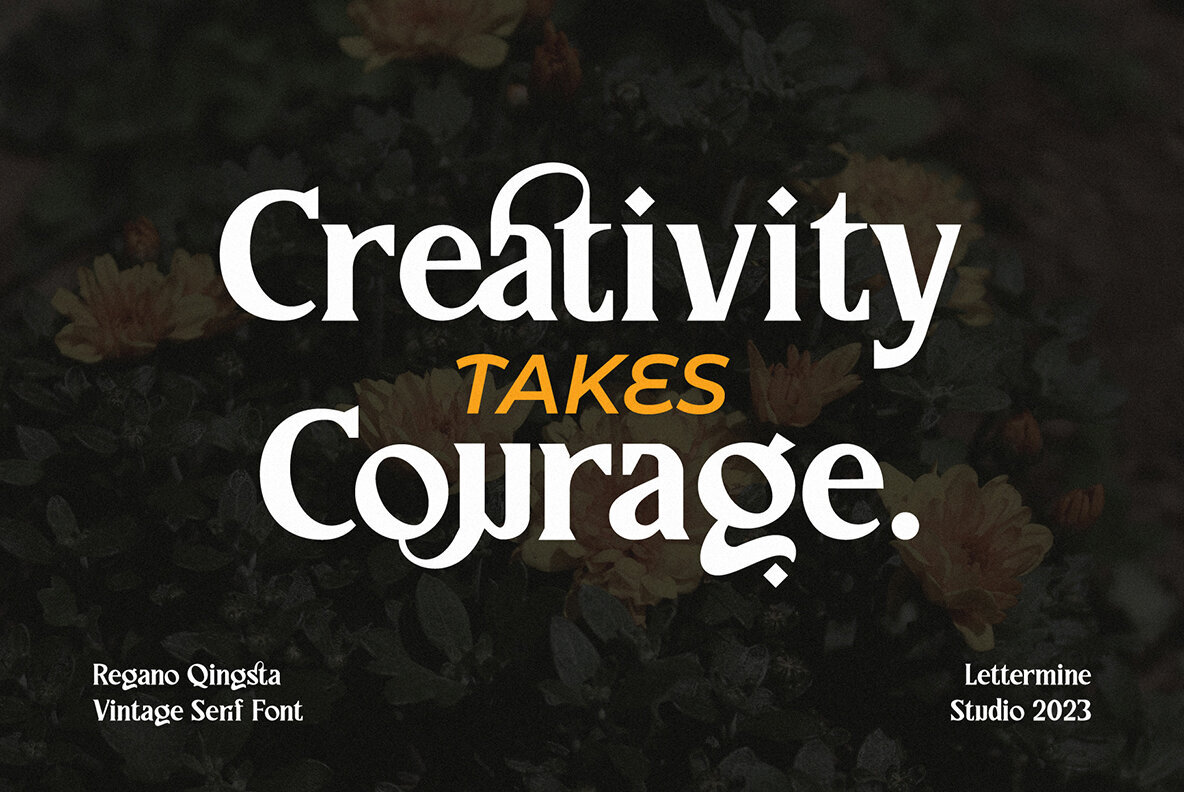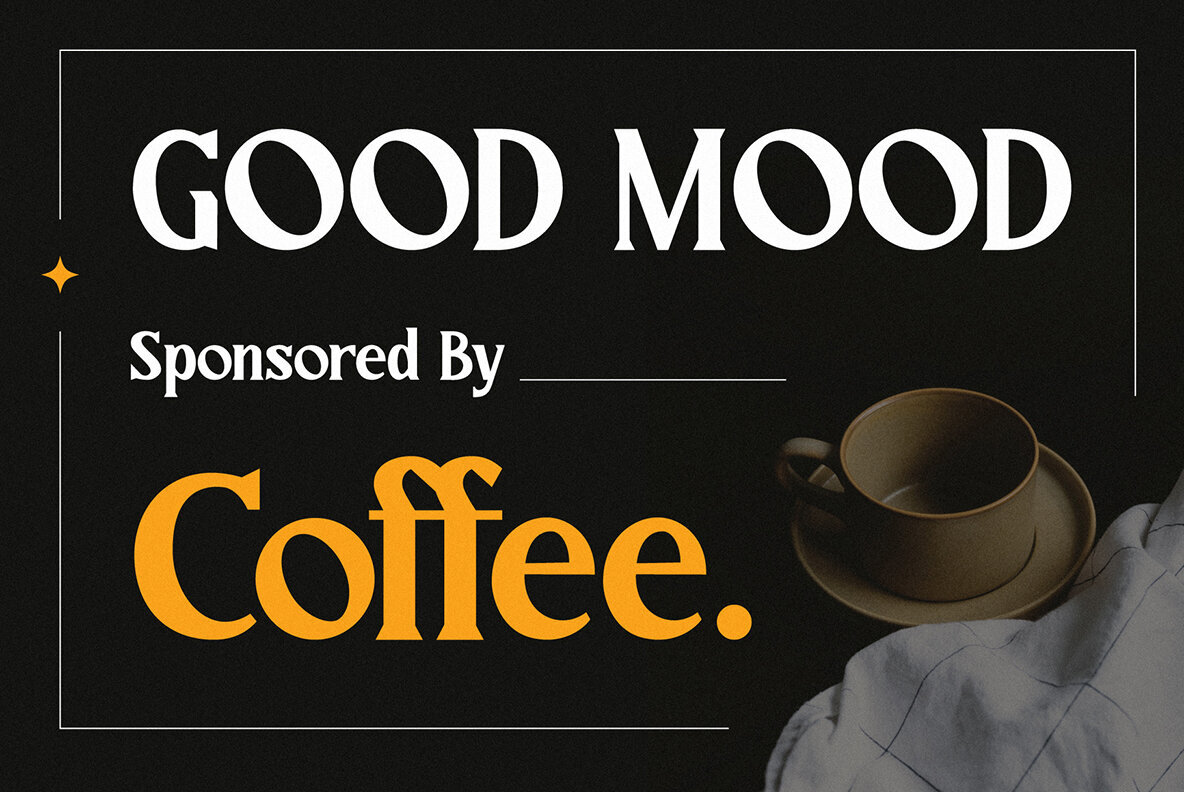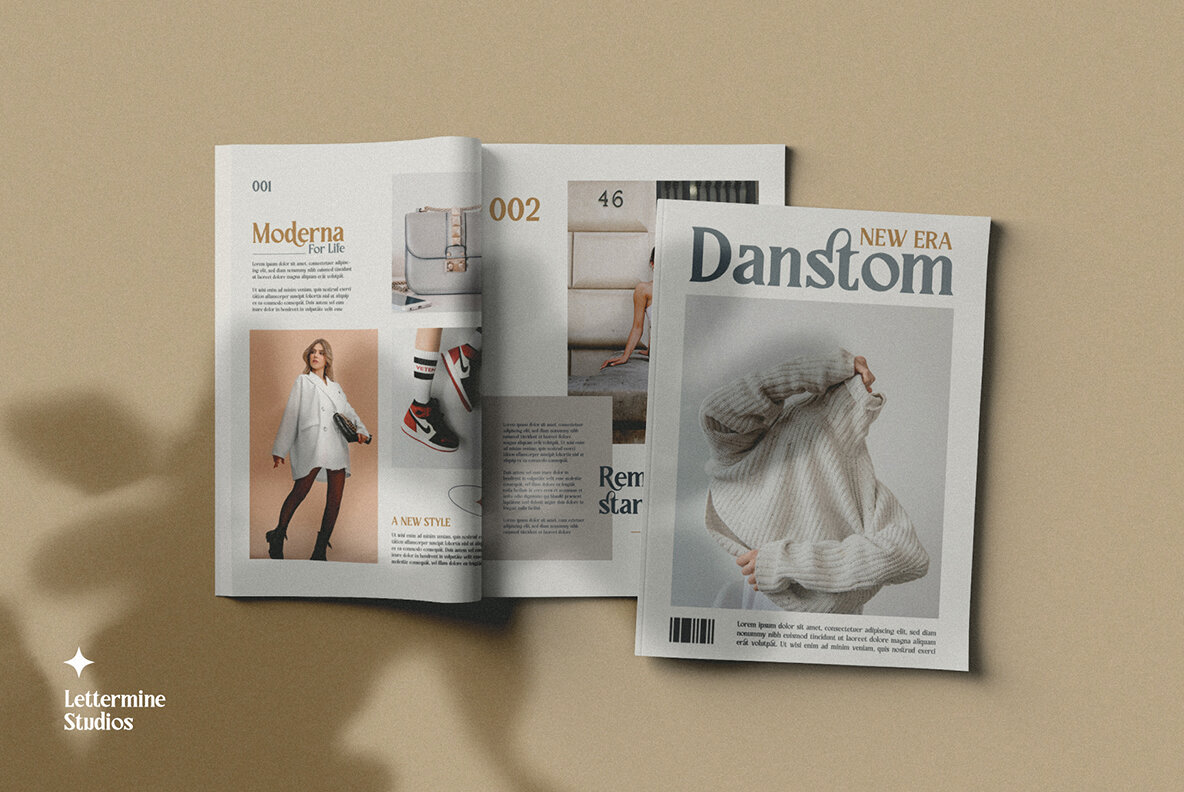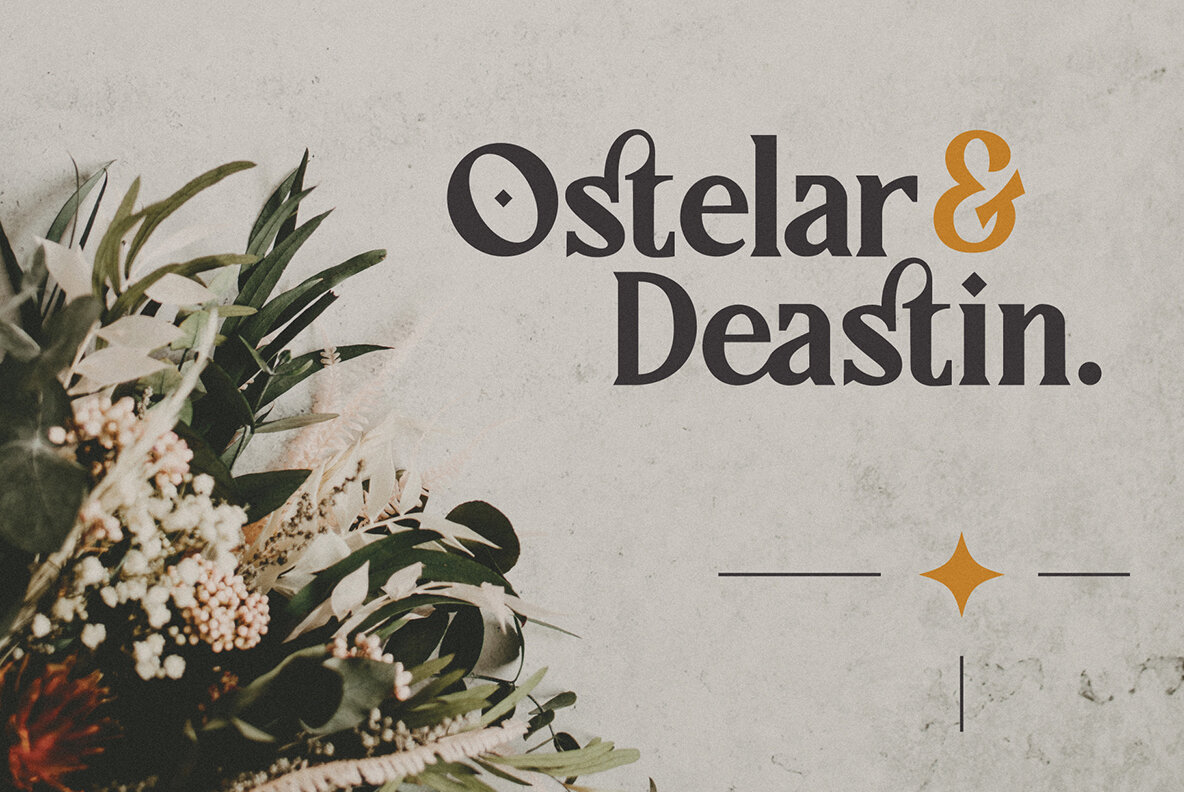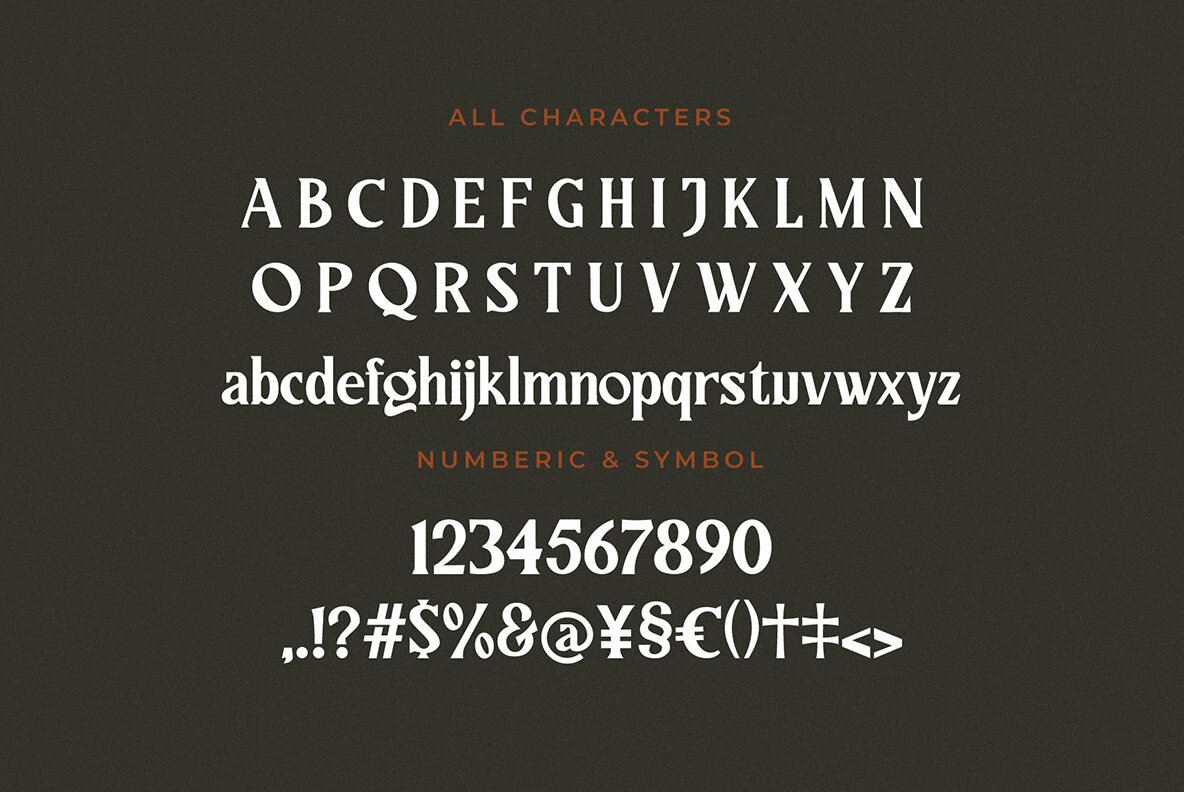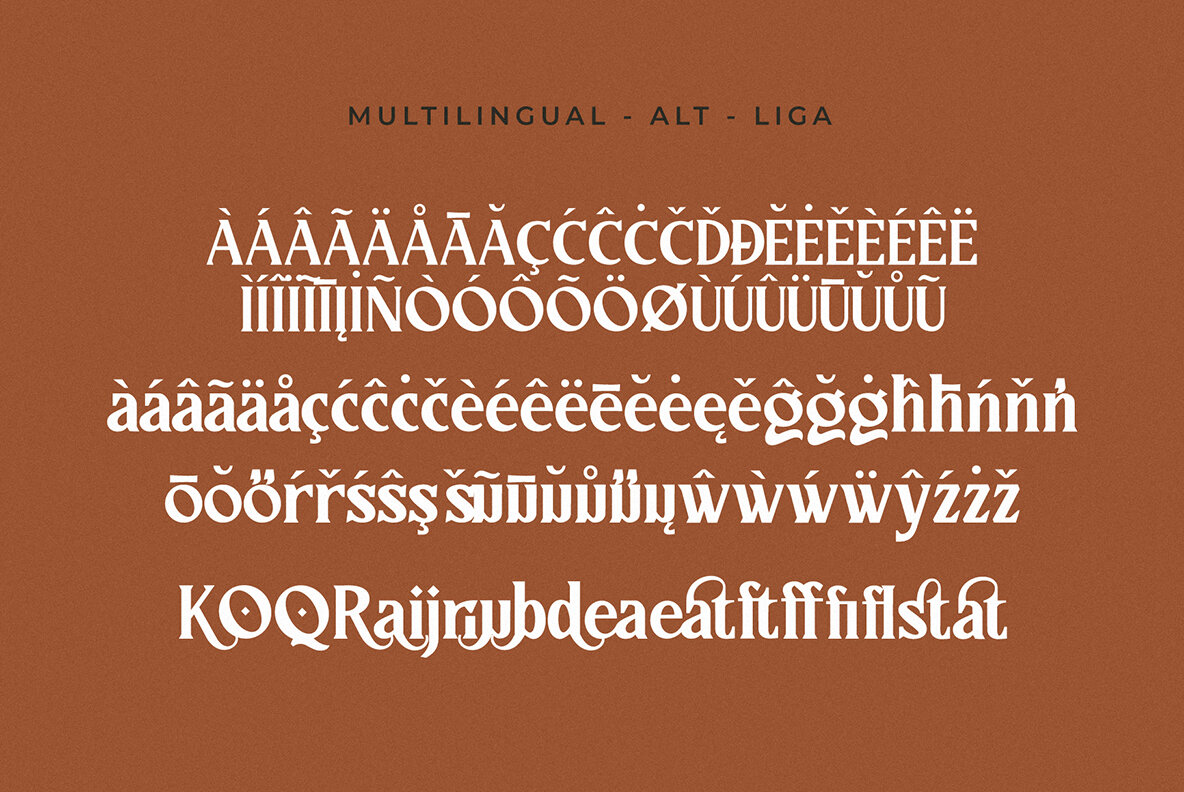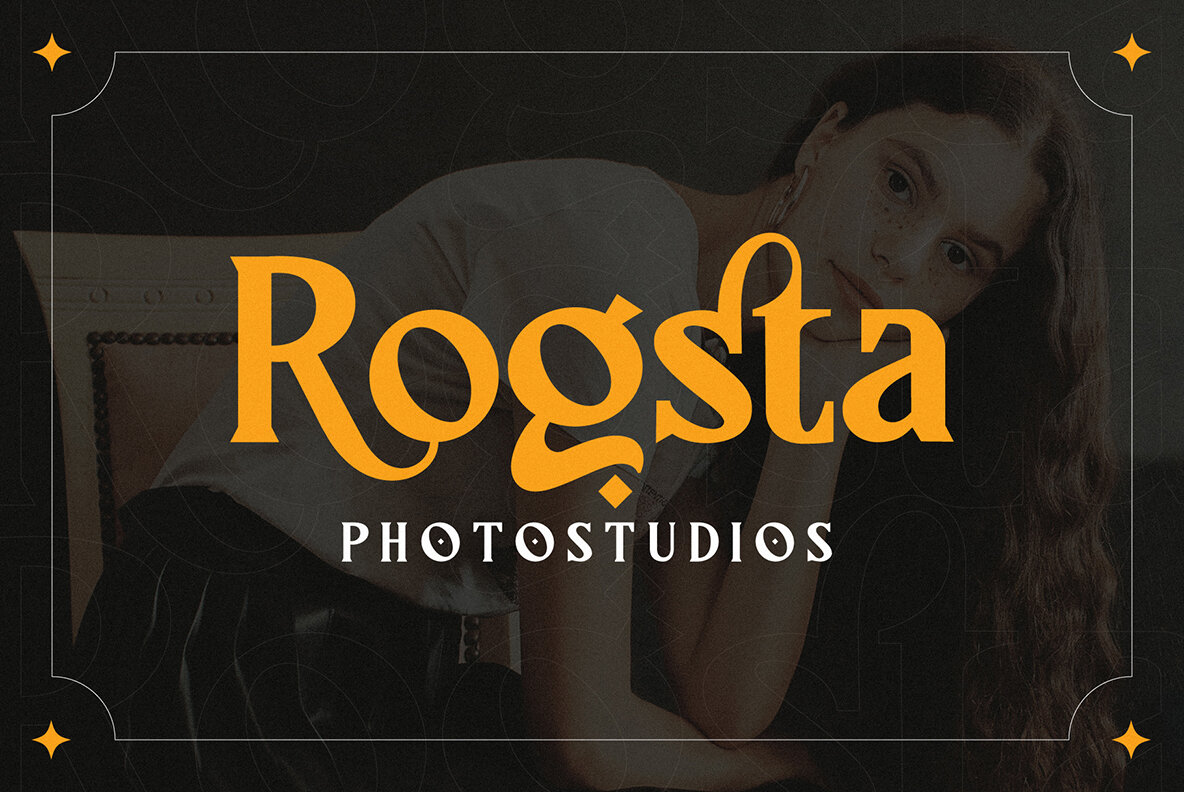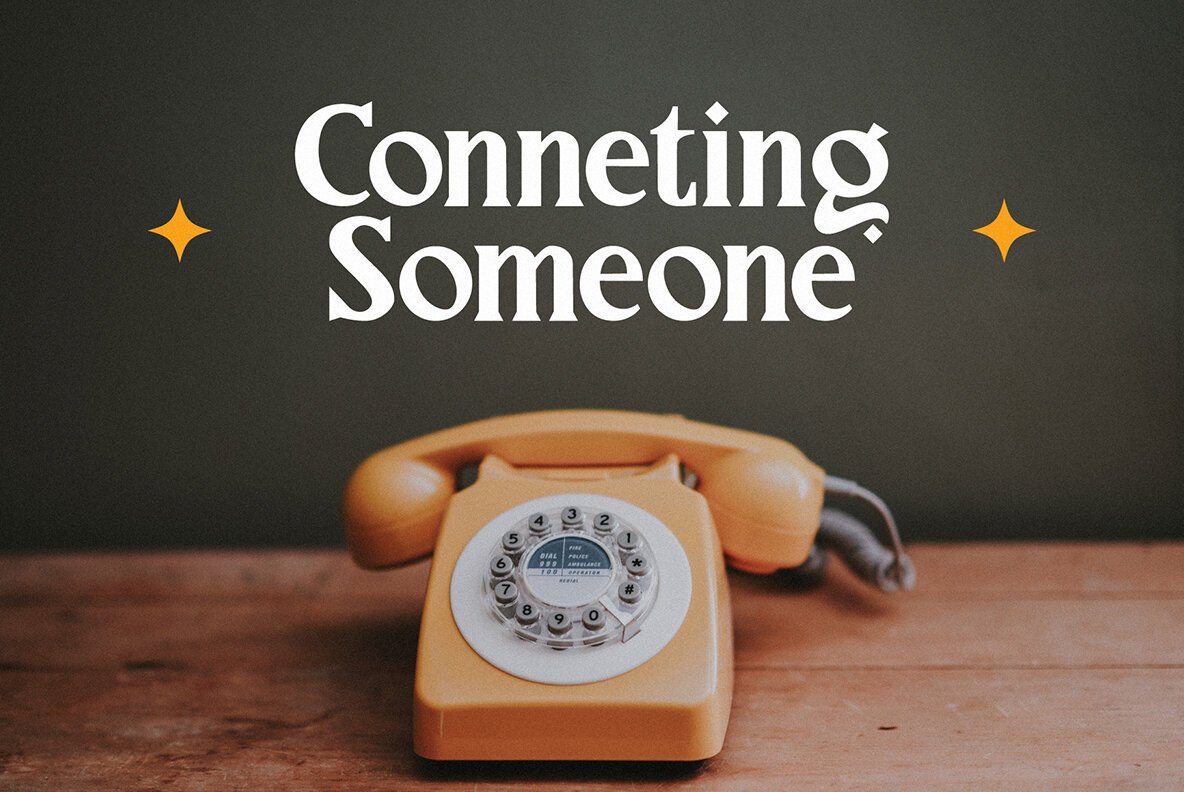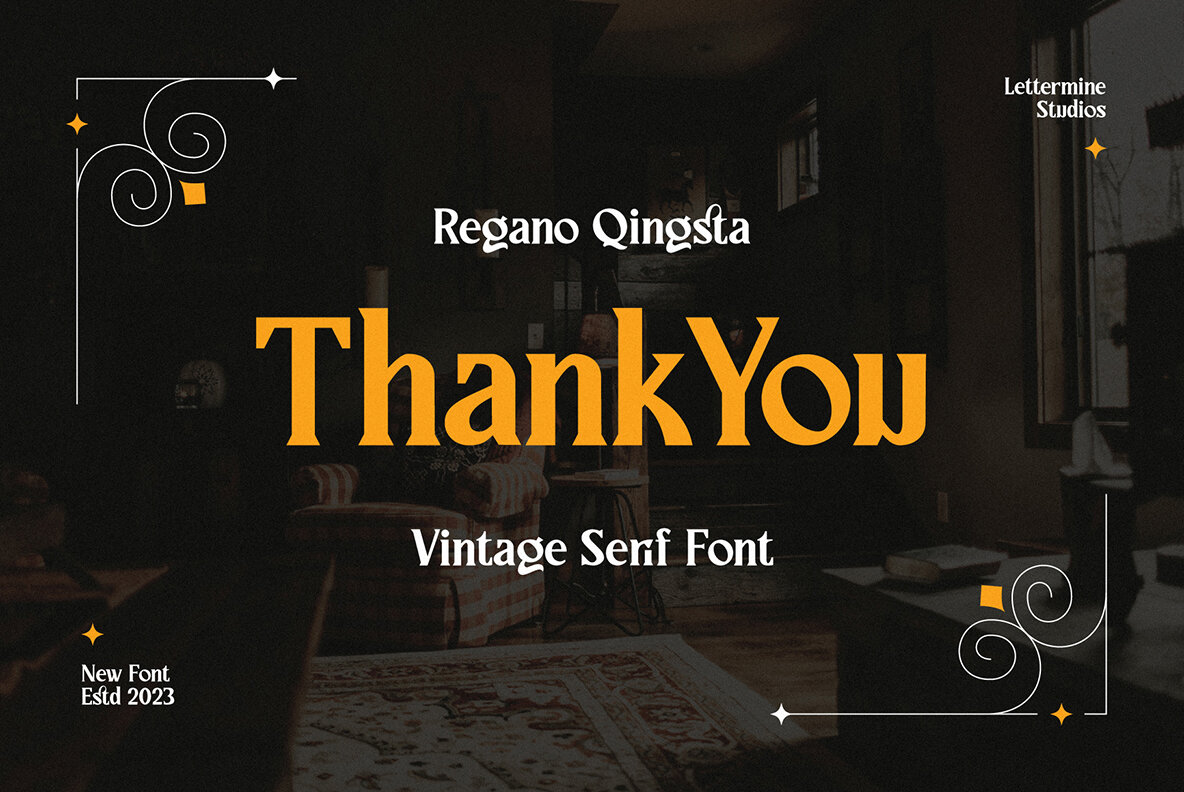
Regano Qingsta Font
Regano Qingsta Regular
A captivating and versatile Serif font designed to add a touch of elegance and modernity to any project. Whether you're designing for the fashion industry, food industry, or various celebratory occasions like weddings, birthdays, or engagements, this font is your perfect companion. With its stylish and contemporary Vintage Serif style, Regano Qingsta - Fancy Serif effortlessly captures attention and elevates your designs to new heights. Key Features: